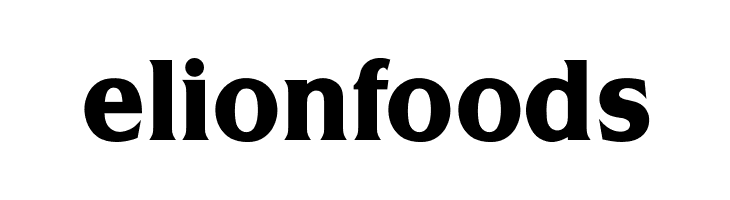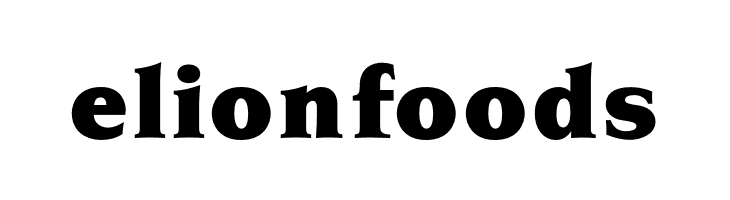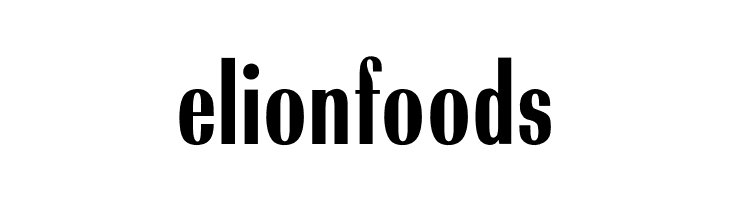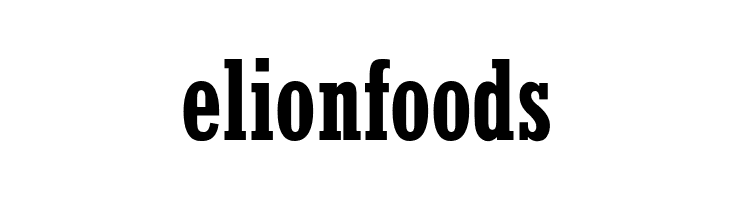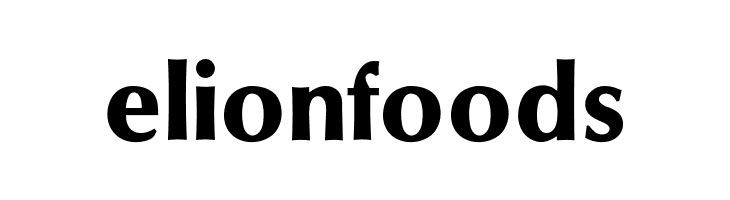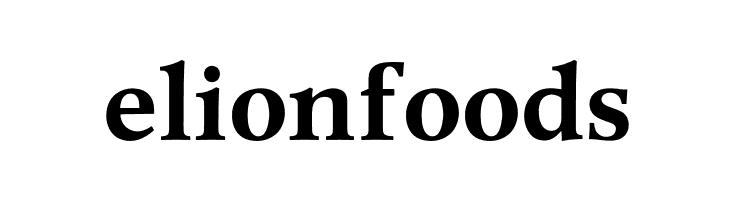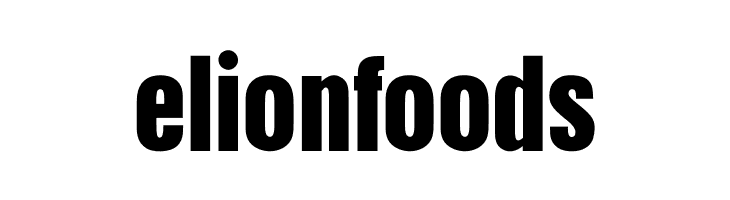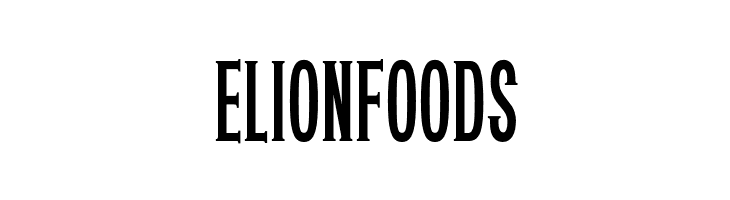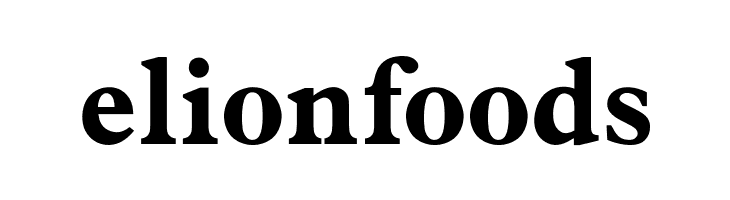
A bold serif typeface with strong, thick strokes and slightly condensed letterforms.
A bold serif font with strong strokes and pronounced serifs, ideal for impactful designs.
A bold, condensed font with strong vertical emphasis and minimal stroke contrast.
A bold, condensed serif font with strong strokes and high contrast.
A bold, semi-bold font with strong, well-defined characters and slight stroke contrast.
A bold, serif font with strong strokes and sharp serifs, offering a classic yet modern appeal.
A bold, impactful font with strong, thick strokes and a modern appearance.
Bold, condensed font with strong vertical emphasis and medium contrast.
A bold serif font with strong strokes and high contrast, perfect for impactful designs.
A bold, geometric font with strong, blocky letterforms and high contrast.